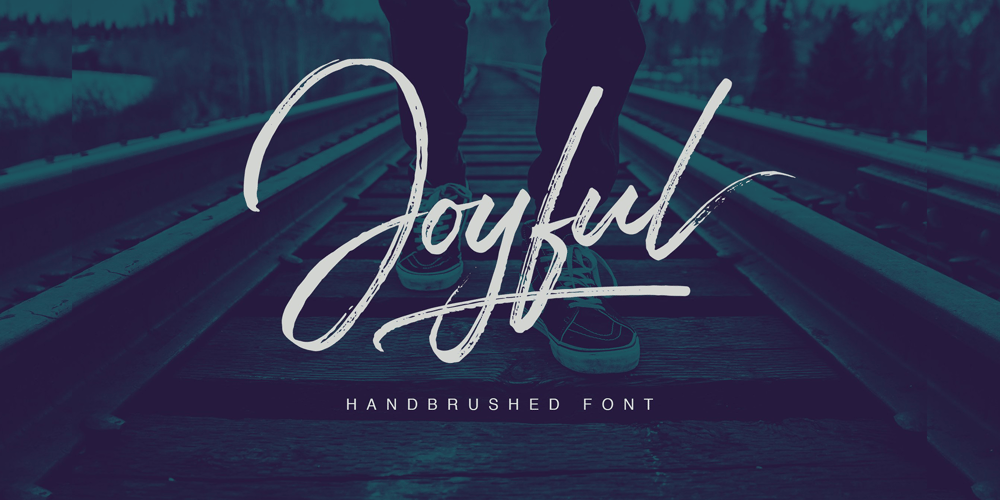
Joyful Font Family was designed by Hermansyah and published by Get Studio. Joyful contains 2 styles and family package options. Joyful Script comes with upper and lowercase characters, punctuation glyphs, numerals, web font, and supports international languages. Stylistic sets for several key lower case characters are also available. Perfect for logo marks, typographic quotes over photos, book covers, and packaging design.Note: To access all the alternate letters for this font you will need software with a glyphs panel – such as Adobe Photoshop CC 2015, Adobe Illustrator, Adobe Indesign, etc.The subset of Joyful Script Regular in this kit supports the following languages: Albanian, Basque, Breton, Chamorro, Dutch, English, Finnish, Frisian, Galician, German, Italian, Malagasy, Portuguese, Spanish, Swedish